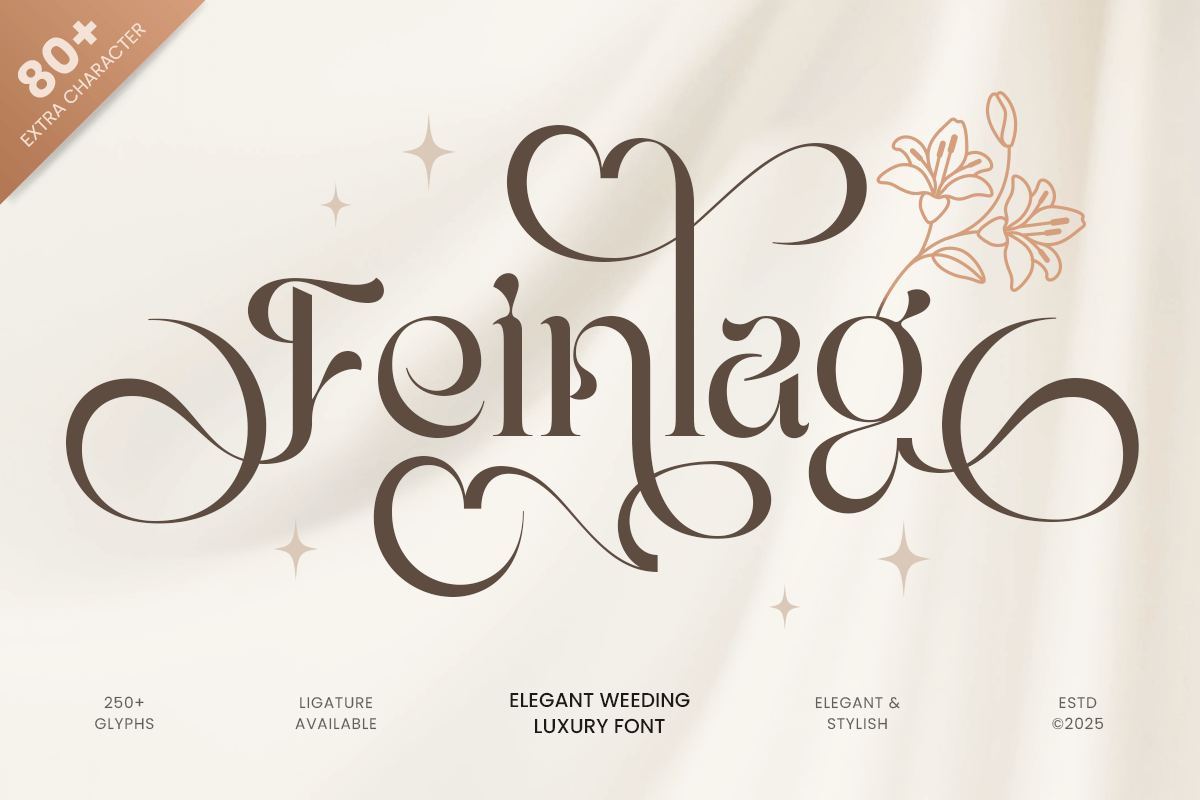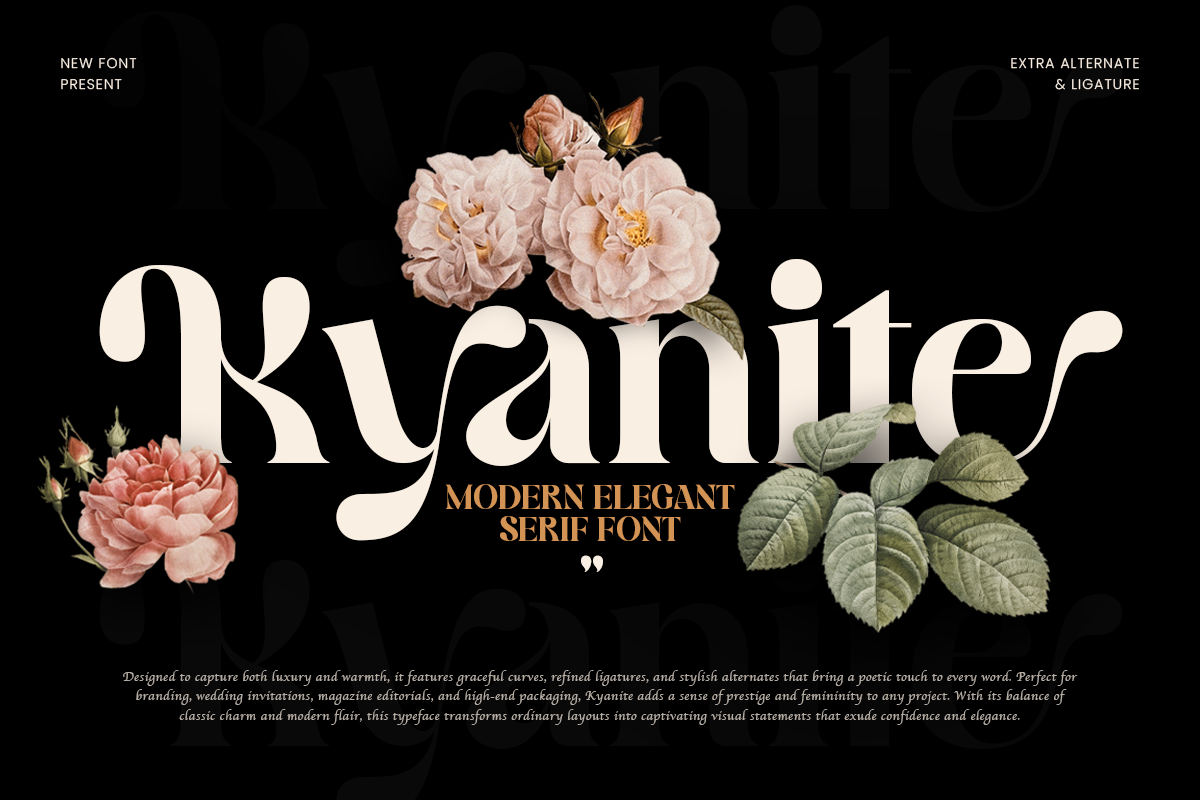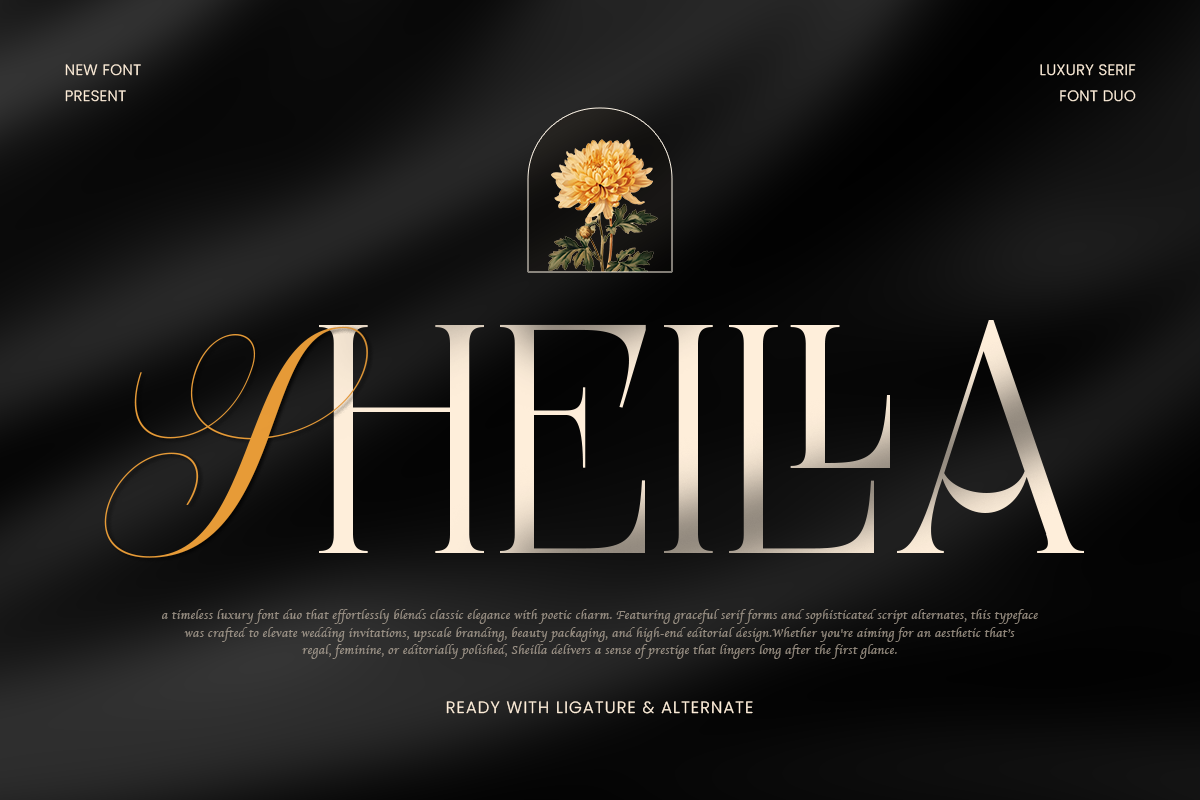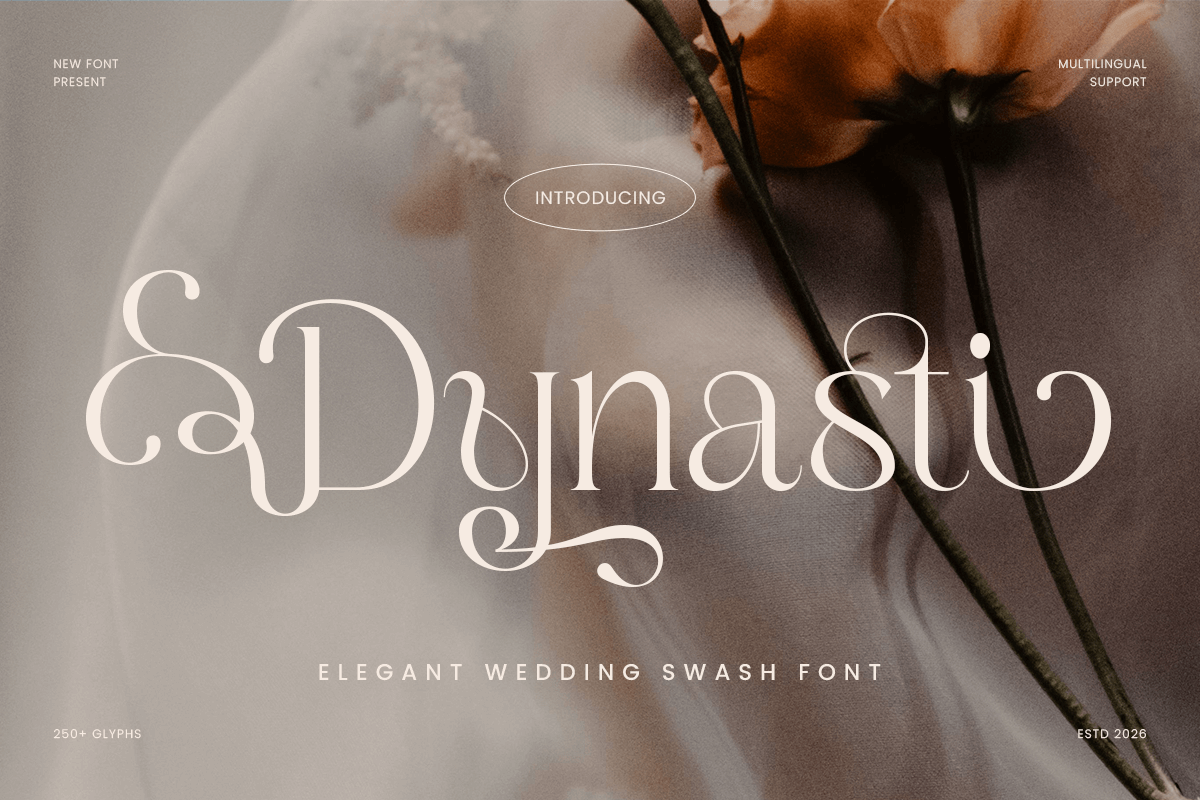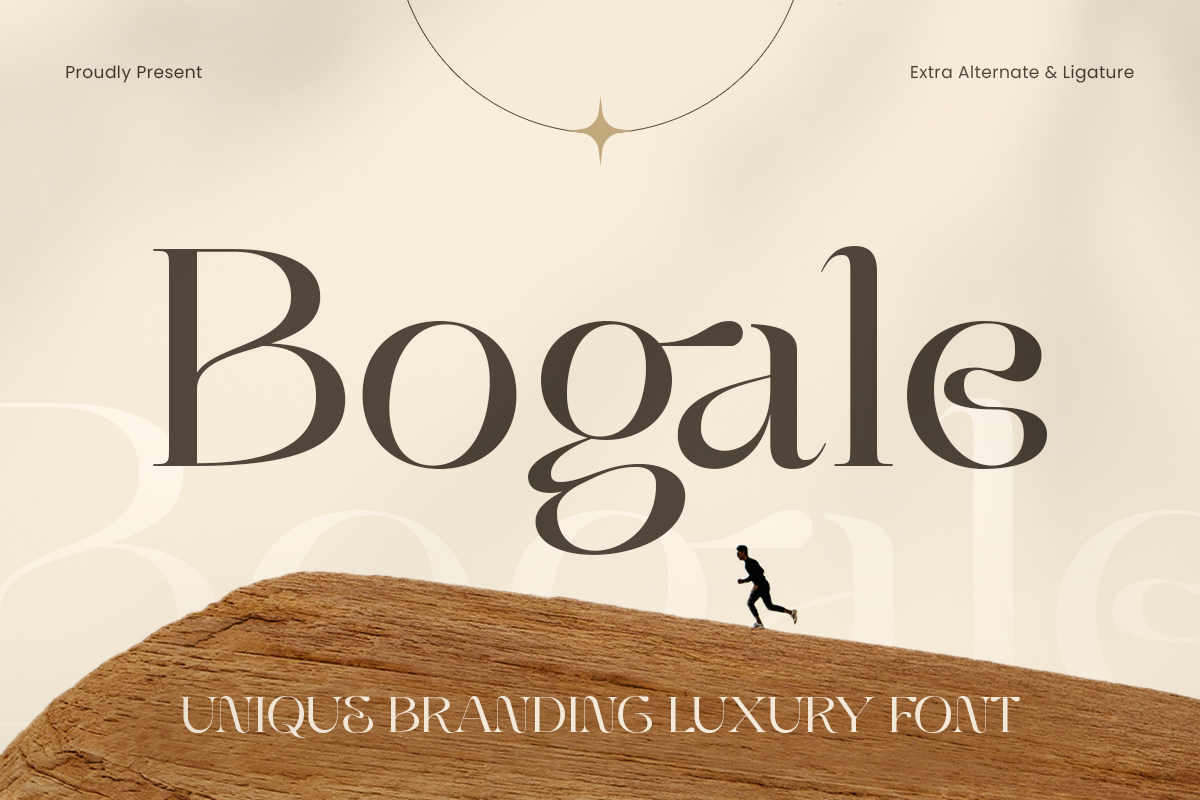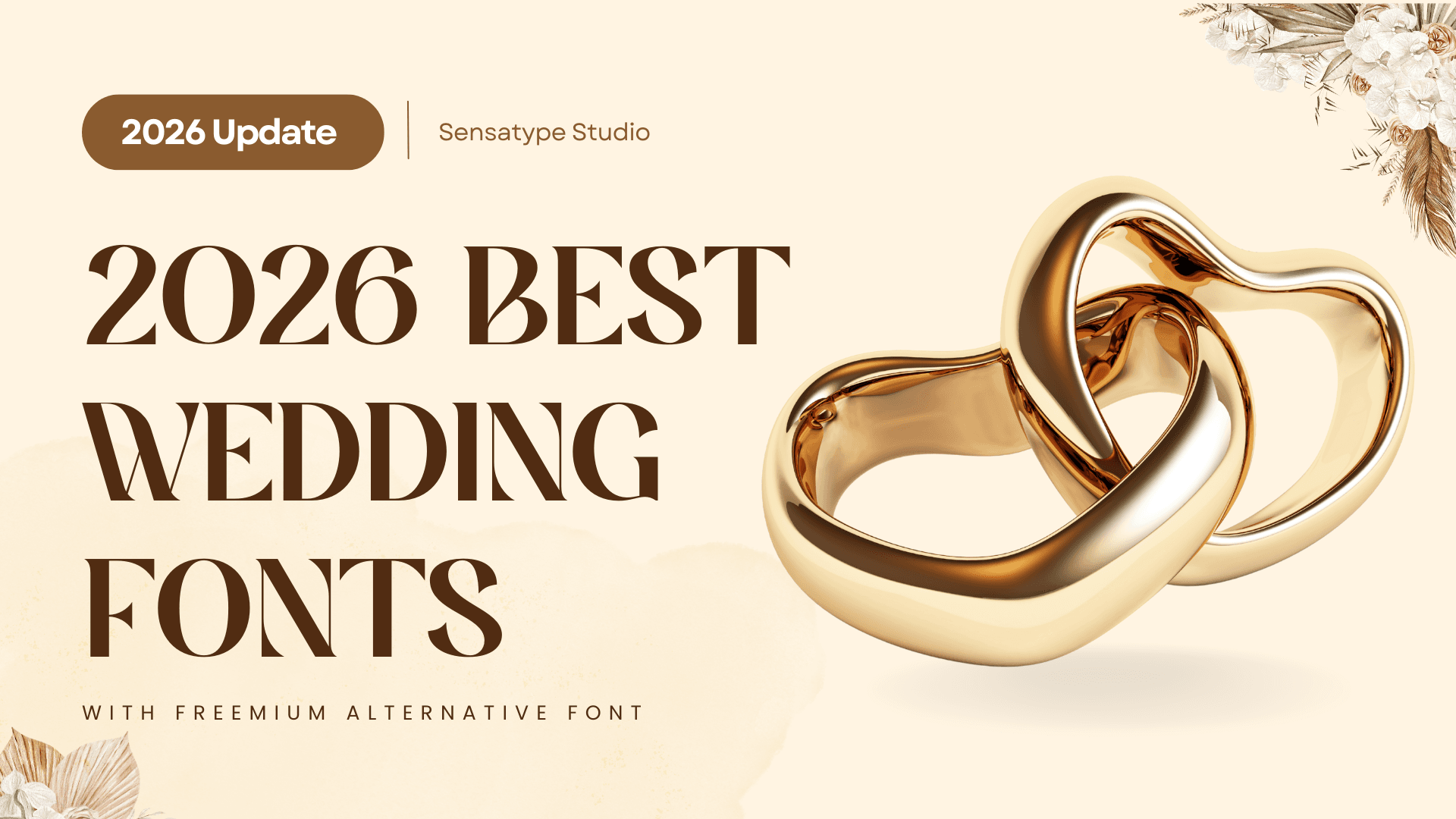
Best Wedding Fonts in 2026
Discover the best wedding fonts in 2026 for invitations, bridal branding, and luxury event design. Explore elegant serif, script, and romantic typography styles.
Best Wedding Fonts in 2026
Wedding typography plays a powerful role in shaping the atmosphere of a celebration. The best wedding fonts combine elegance, readability, and emotional character, helping invitations, save-the-date cards, and wedding branding feel romantic and memorable. From classic serif typefaces to flowing calligraphy scripts, the right font can instantly elevate a wedding design.
In 2026, wedding typography trends continue to favor romantic script fonts, elegant serif fonts, and modern calligraphy styles. These typefaces help create a visual identity that feels timeless, luxurious, and personal. Whether you are designing a bridal brand, creating wedding invitations, or building an entire wedding stationery suite, choosing the right font is essential for achieving a refined and cohesive look.
Why Wedding Fonts Matter in Wedding Design
Typography is often the first visual element people notice when they see a wedding invitation or announcement. Before guests even read the details, the style of the letters already communicates the tone of the event.
Elegant fonts can make a wedding feel formal and luxurious. Script fonts create a romantic and intimate atmosphere. Modern serif fonts bring sophistication and clarity to contemporary wedding designs.
Because weddings are built around emotion and storytelling, typography becomes more than decoration. It helps communicate personality, style, and the overall mood of the celebration.
Wedding fonts are commonly used for:
• Wedding invitations
• Save-the-date cards
• Bridal logos
• Wedding websites
• Ceremony programs
• Menus and table cards
• Event signage
• Wedding packaging and labels
• Social media wedding announcements
A well-chosen font can unify every visual element of the wedding design, creating a consistent and elegant aesthetic across the entire event.
Best Wedding Fonts in 2026
Here are several elegant wedding font alternatives from Sensatype Studio that work beautifully for wedding invitations, bridal branding, and luxury event design.
Kyanite – Modern Elegant Serif Font
Kyanite is a modern elegant serif font crafted to deliver a refined and polished visual tone. Its balanced proportions and graceful serif details create a sophisticated atmosphere that feels both timeless and contemporary. Kyanite’s elegant structure ensures excellent readability while maintaining a premium aesthetic.
Sheilla – Luxury Serif Font Duo
Sheilla is a luxury serif font duo designed to provide a complete typography pairing system. The combination of two complementary serif styles allows designers to create hierarchy while maintaining a cohesive visual identity. The contrast between the two serif styles adds rhythm and visual sophistication.
Dynasti – Elegant Wedding Swash Font
Dynasti is an elegant script font designed specifically for romantic and expressive wedding typography. Its flowing strokes and decorative swashes create a calligraphy-inspired style that feels intimate and graceful. The swash details help create a dramatic and luxurious look.
Feinlag – Editorial Serif Logo Font
Feinlag is a refined editorial serif font designed to bring timeless beauty to wedding and luxury branding. With delicate contrast and graceful curves, this typeface delivers a sophisticated visual presence. Its elegant proportions give wedding typography a polished editorial quality.
Bogale – Unique Branding Luxury Font
Bogale is a unique luxury serif font that radiates sophistication and exclusivity. Its carefully crafted strokes and distinctive character shapes give it a bespoke appearance that works beautifully in high-end wedding branding. Bogale’s distinctive character makes it an excellent choice for designers seeking a premium aesthetic.
Where Wedding Fonts Are Used
Wedding fonts appear across many visual elements of the celebration. Using consistent typography helps create a unified design language.
Common applications include:
• Invitations
• Save-the-date cards
• Wedding websites
• Event signage
• Seating charts
• Menus and place cards
• Bridal logos
• Packaging and labels
A consistent typography system ensures that every element feels connected and intentional.
The best wedding fonts in 2026 combine romance, elegance, and readability. Whether used for invitations, bridal branding, or luxury event design, typography helps shape the emotional tone of the celebration.
Script fonts bring warmth and intimacy, serif fonts add timeless sophistication, and modern typography creates refined minimalism. When chosen carefully, wedding fonts can elevate every design element and help tell the story behind a beautiful celebration.
Designers who invest time in selecting the right wedding typography often create invitations and branding that feel more polished, memorable, and emotionally resonant.